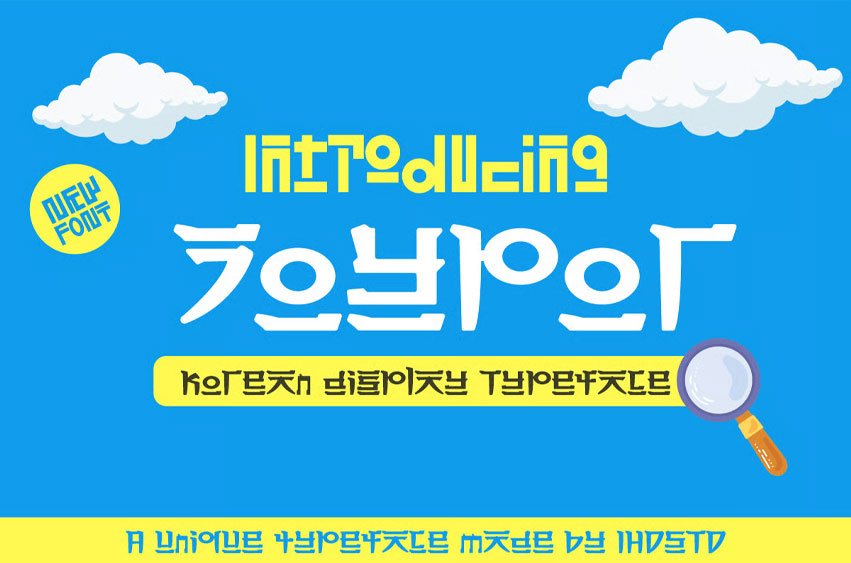
Joypor Hangeul Font Korean Style Display Font” is a typeface designed to evoke the aesthetic of modern Korean typography. It often features clean, minimalist lines with subtle curves and unique character forms. The font’s strokes may vary in thickness, giving it a playful yet sophisticated feel.
It’s well-suited for a variety of design applications, including branding, posters, social media graphics, and product packaging, especially for themes related to K-pop, K-drama, beauty, or food. Its distinctive style allows it to stand out while maintaining a sense of elegance and contemporary flair.